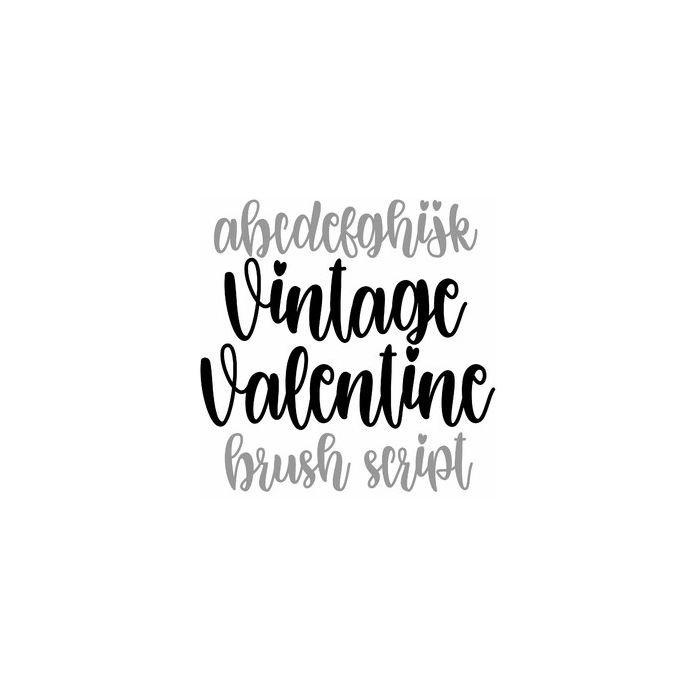
Pretty handwritten cursive brush font with hearts. Fun for decorative crafts, valentines, birthday, wedding, monogram, signs, and personalization projects. Includes alphabet, numbers, and punctuation.